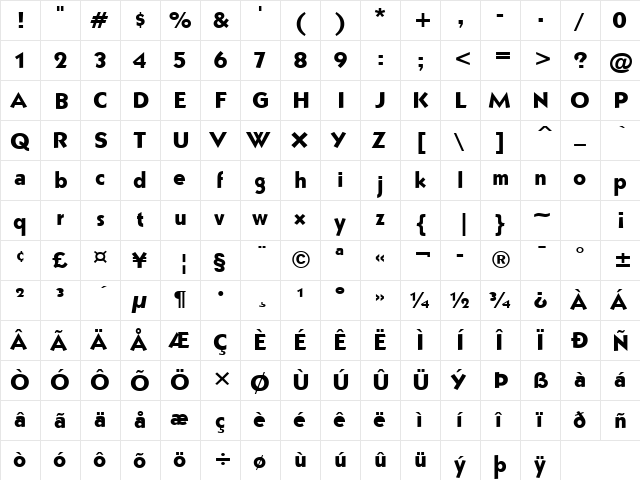
Bully Narrow Bold
Design Context for Bully Narrow Typeface
Bully Narrow offers clean, dependable letterforms without strong stylistic allegiance, making it a practical choice for designers who need flexibility. Its bold stroke weight gives it real presence on the page. The condensed width makes it efficient for tight spaces without sacrificing legibility.